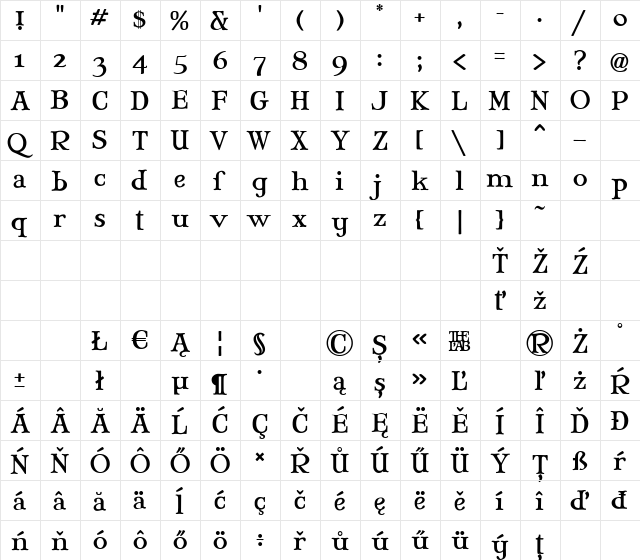
Mary Jane - Eastern Europe Regular
Design Context for Mary Jane - Eastern Europe Typeface
Mary Jane - Eastern Europe takes a measured approach to typography — its balanced proportions and neutral character make it a reliable workhorse for both digital and print work.